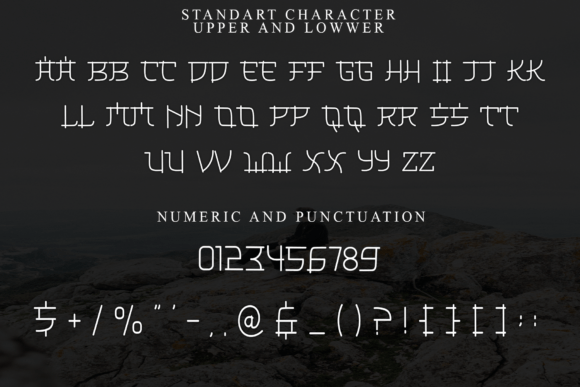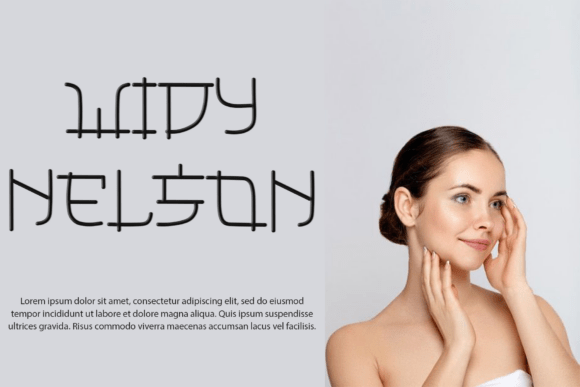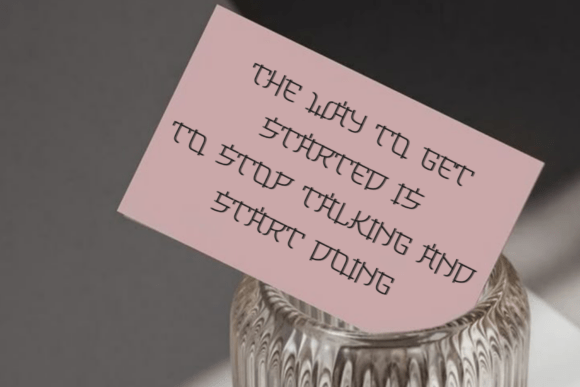
Introduction to Japan Gate Font
As a designer, there’s nothing quite like the thrill of discovering a new font that sparks your creativity. You’re browsing through your favorite font repository, scrolling through the endless options, and suddenly, you stumble upon it – a font that speaks to you, a font that makes your design projects come alive. For me, that font was the Japan Gate Font. Its soft, unique touch and distinctive strokes captivated me, and I knew I had to learn more about it.
Designed to make a statement, the Japan Gate Font is a versatile and meaningful addition to any creative project. Its high-quality design and transparent background make it perfect for a wide range of applications, from design projects to crafts and other creative works. With its compatibility with various platforms, including Windows and open-source platforms, this natural font style is a valuable resource for designers looking to elevate their designs and appeal to a broad audience.
Key Features of Japan Gate Font
- High-quality design resource for creative projects, featuring intricate Japanese-inspired details.
- Unique characteristics include traditional Japanese motifs and ornate details, perfect for adding a touch of cultural flair to any design.
Honest Review: Japan Gate Font
As a designer, I’m always on the lookout for unique and high-quality design resources to elevate my creative projects. Recently, I stumbled upon the Japan Gate Font, and I’m excited to share my honest review with you.
- ✨ The font is incredibly detailed and features a beautiful, intricate design that’s perfect for adding a touch of elegance to your projects.
- ⚠️ The font is quite large, which can make it difficult to use in smaller design projects.
Overall, I’m impressed with the Japan Gate Font. Its unique design and high quality make it a valuable resource for designers, and the free download option is a major plus. However, be aware of the potential limitations, and use your discretion when selecting this font for your creative projects.
Common Use Cases for Japan Gate Font
The Japan Gate Font is a versatile design resource that can be used in a variety of creative projects, including logos, business cards, and marketing materials. It is particularly well-suited for designs that require a touch of elegance and sophistication.